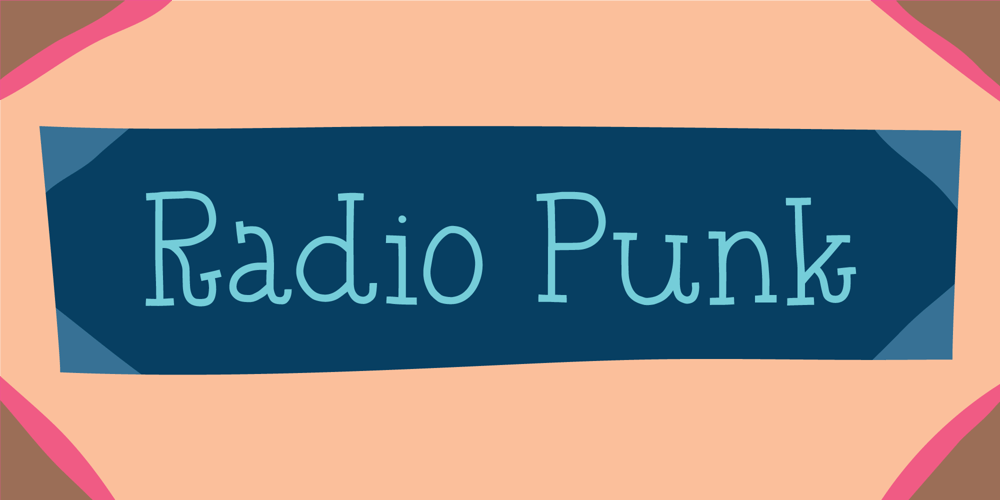
Radio Punk Font Family was designed by Jakob Fischer and published by PizzaDude.dk. Radio Punk contains 2 styles and family package options. Radio Punk is somewhat inspired by a combination of the classic moves of a typical serif font and the letter shapes you often see in a typewriter font – that combined with a twist of grafitti and comic!It’s originally handmade, but I cleaned up the most curves digitally. However, I kept just enough of the handmade strokes and kept most of the handmade impressions!